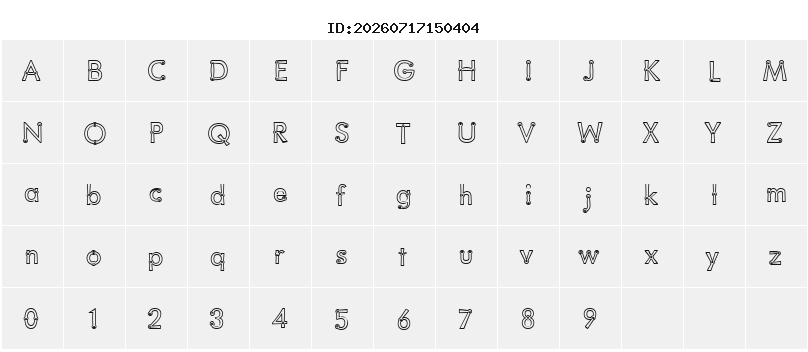
About Blacksmith Delight Outlined.ttf
Blacksmith Delight Outlined.ttf is a modern, elegant sans-serif font designed for ultimate readability and visual harmony. Perfect for branding, headlines, web design, and print materials.